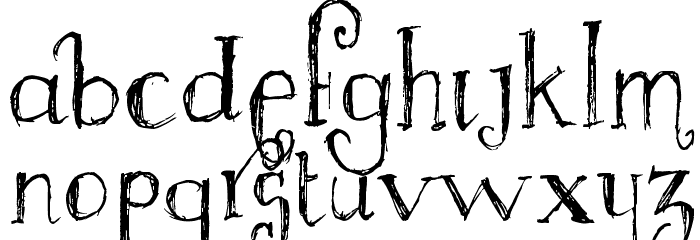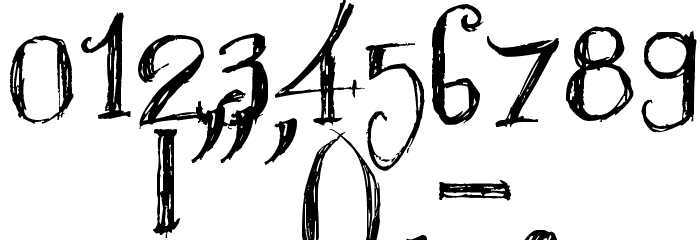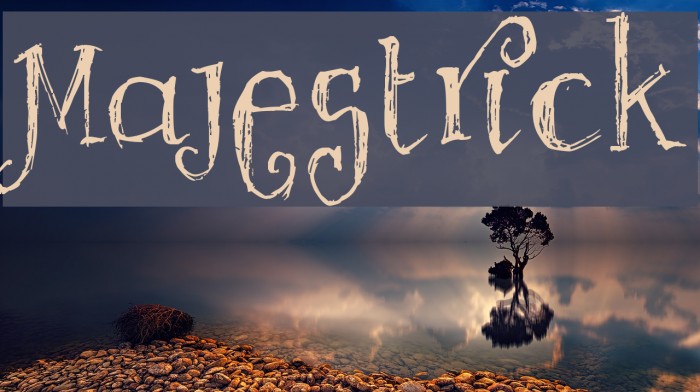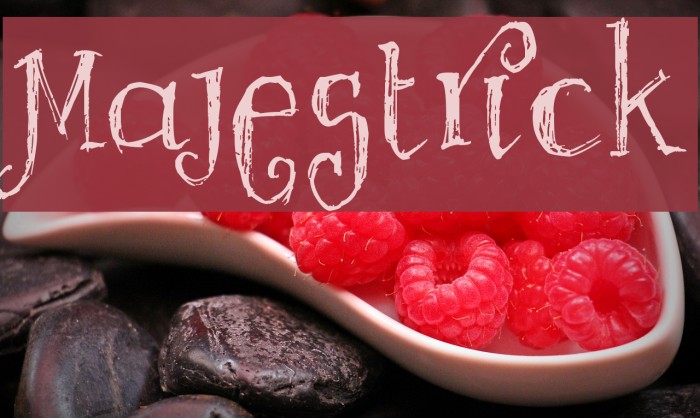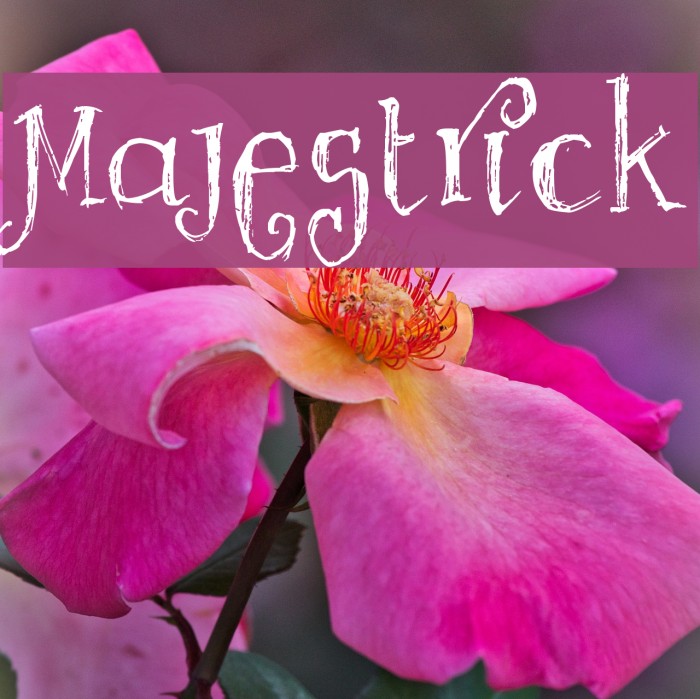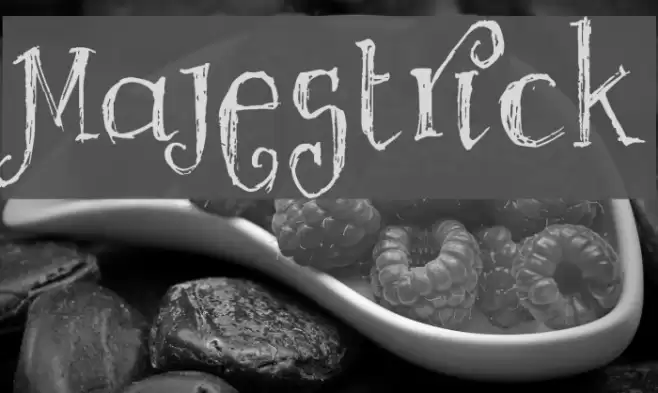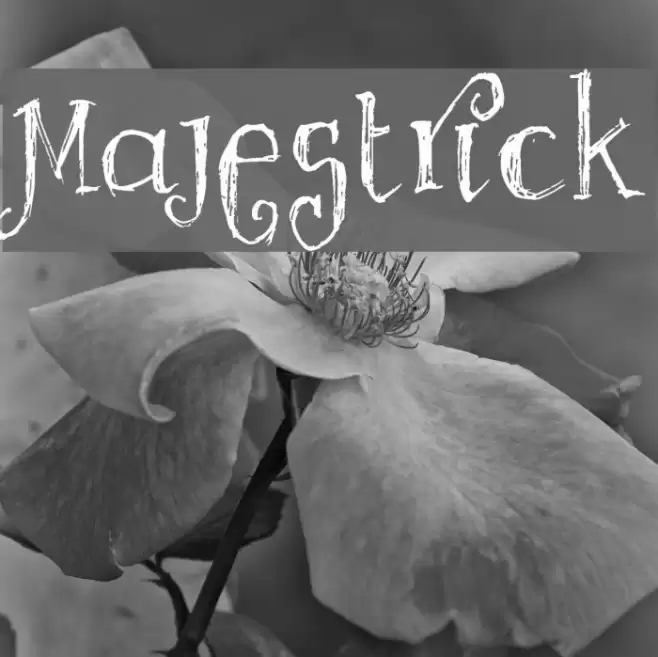
Majestrick Font
This font exhibits a highly decorative and artistic style, characterized by its intricate swirls and flourishes that extend from the main strokes of the letters. The uppercase letters are particularly ornate, with exaggerated curves and loops that give a sense of elegance and sophistication. The lowercase letters maintain a consistent style, though they are slightly less embellished, allowing for improved readability. The numbers and special characters follow the same decorative theme, ensuring a cohesive appearance across all glyphs. This font's unique design is reminiscent of calligraphic scripts, making it suitable for projects that require a touch of vintage charm or artistic flair.
An ornate and decorative font with intricate swirls and flourishes.
- Proposed Projects: Ideal for wedding invitations, vintage-themed posters, artistic branding, and decorative headings.
- Use Case: Headlines, Logos, Invitations